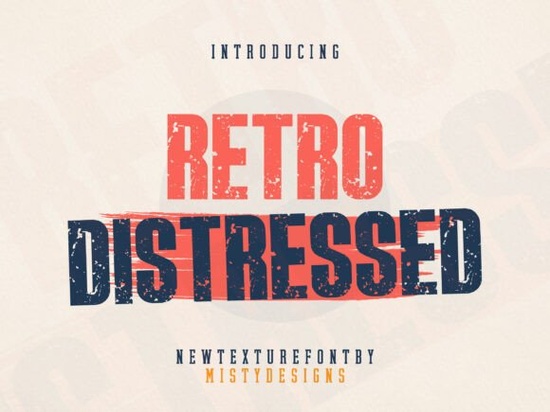
The Retro Distressed Font is a versatile typeface that brings a sense of history and grit to any design project. Whether you're creating a logo, a t-shirt graphic, or a music cover, this font adds a unique visual texture that stands out. Its worn edges and weathered look evoke the feel of old posters and vintage prints, making it ideal for urban-themed designs or anything with a nostalgic twist.
Designed with attention to detail, the Retro Distressed Font features a bold character that doesn’t sacrifice readability. The texture gives it a handcrafted appearance, perfect for adding depth to headlines or titles. This font works well in both digital and print formats, ensuring your designs maintain their impact across different mediums.
Why Use a Distressed Font?
Distressed fonts like Retro Distressed are popular among designers because they add a layer of character that standard fonts often lack. They can transform a simple text into something that feels authentic and lived-in. This style is especially effective for branding that wants to convey a sense of ruggedness or nostalgia.
For example, if you're working on a project for a retro-themed event or a vintage clothing line, using a distressed font can help reinforce the overall aesthetic. It’s also great for creating eye-catching headlines that draw attention without being too flashy.
Best Uses for the Retro Distressed Font
- Logos: Add a unique touch to brand identities that want to stand out.
- T-shirt Designs: Ideal for creating bold, attention-grabbing graphics.
- Music Covers: Perfect for indie bands or artists looking for a vintage vibe.
- Urban Graphics: Enhances the look of streetwear, posters, and graffiti-style artwork.
How to Get the Most Out of Your Font
To make the most of the Retro Distressed Font, experiment with different color combinations and background elements. Since the font has a strong visual presence, it works best when paired with simpler designs that don’t compete with its texture. Try using it on dark backgrounds for a dramatic effect or on light ones for a more subtle look.
Whether you're a designer, crafter, or small business owner, the Retro Distressed Font is a valuable addition to your toolkit. Its combination of style and functionality makes it a go-to choice for projects that need a little extra flair.
Before finalizing your design, take a moment to review how the font looks in different sizes and settings. This ensures that it meets your expectations and delivers the desired impact. With a little experimentation, you’ll find the perfect way to use this font in your next project.
Remember, the key to great design is not just about choosing the right tools, but also about knowing how to use them effectively. The Retro Distressed Font is a powerful asset, but its success depends on how you incorporate it into your work.
Take a look at the font in action and see how it can elevate your designs. With the right approach, you’ll be able to create visuals that capture attention and tell a story.